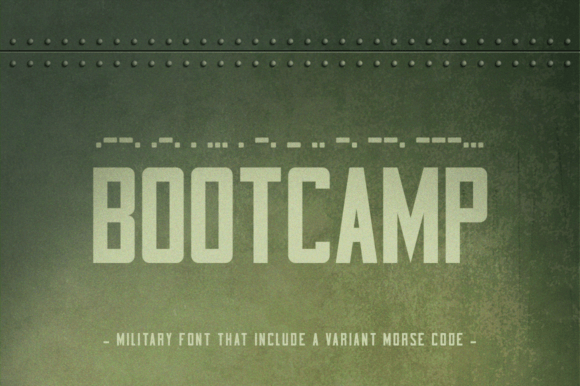
Introducing the Bootcamp Font Collection: Unleash the power of typography with this captivating all caps sans serif font, inspired by the iconic military lettering style of the World War 1 era. Created by the talented DonMarciano, this font is not just any ordinary typeface, but a powerful tool designed to make your message stand out from the crowd.
Why settle for ordinary when you can have extraordinary? The Bootcamp Font Collection is meticulously crafted with attention to detail, ensuring every character exudes strength and authority. Its bold and commanding presence will leave a lasting impression on your audience, making it the perfect choice for any project that requires impact and professionalism.
But what truly sets the Bootcamp Font Collection apart is its unique pairing with a rough morse code font. This combination adds an extra layer of authenticity, giving your designs a rugged and timeless appeal. Whether you're designing for military-themed projects or simply aiming to make a bold statement, this font duo will elevate your creations to new heights.
Imagine the possibilities! With the Bootcamp Font Collection, you can effortlessly create eye-catching logos, striking headlines, powerful quotes, and much more. Its versatility knows no bounds, allowing you to experiment with various styles and layouts to find the perfect fit for your vision.
Not only does the Bootcamp Font Collection deliver on style, but it also caters to functionality. The font is meticulously optimized for digital displays, ensuring a seamless and crisp reading experience across all devices. This means that your message will always be clear and legible, no matter where it's viewed.